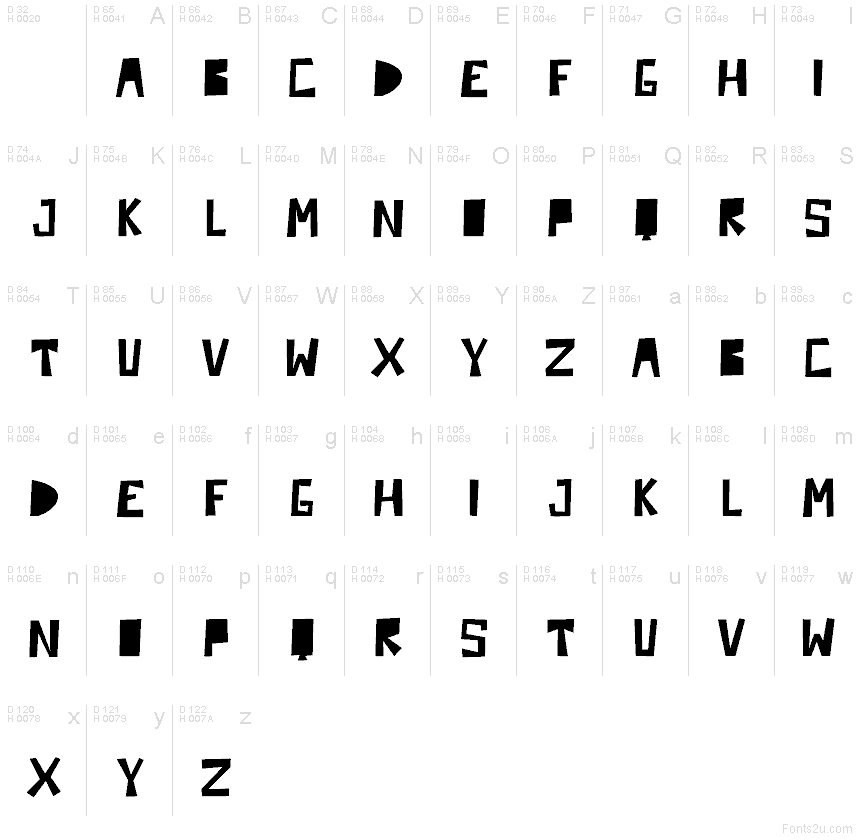
JOKEHOROR
Jokehoror font by selawetype is a free bold cartoon display font. Chunky, hand-cut shapes, skewed angles, and jittery rhythm give it that cheeky “boo!” energy—more haunted funhouse than full-on nightmare. It was made to shout in big, inky blocks, where the rough edges and off-balance forms turn simple words into playful scares.
This free font shines on Halloween posters, haunted house flyers, spooky kids’ party invites, YouTube horror-comedy thumbnails, game title screens, and sticker or candy packaging. Using Jokehoror, keep it large with a touch of extra tracking so the jagged silhouettes breathe, and pair it with a clean condensed sans for body text to let the mischief take center stage.